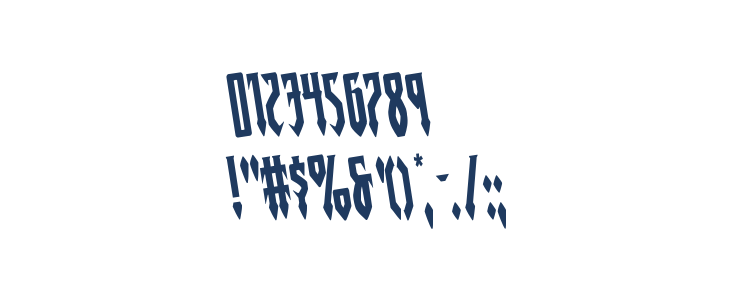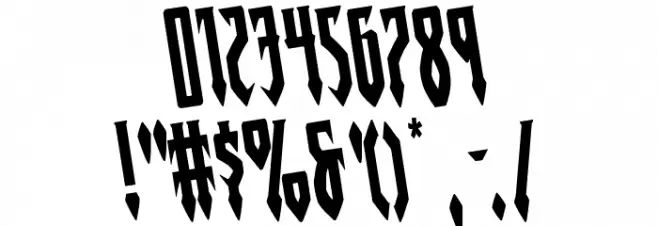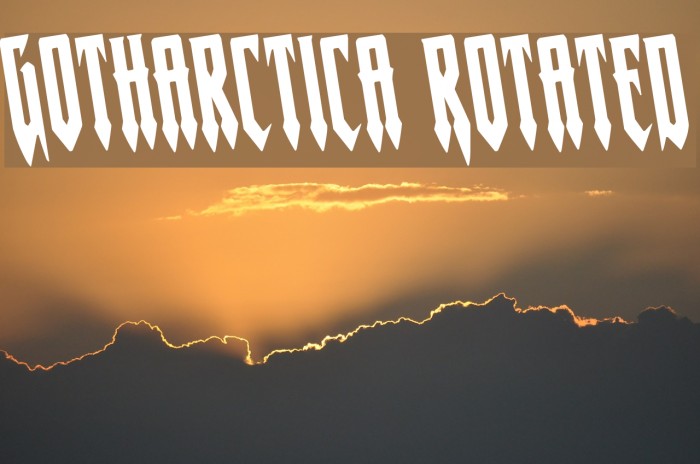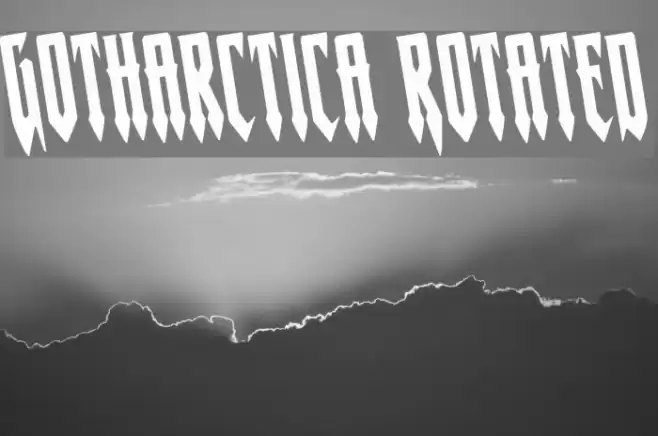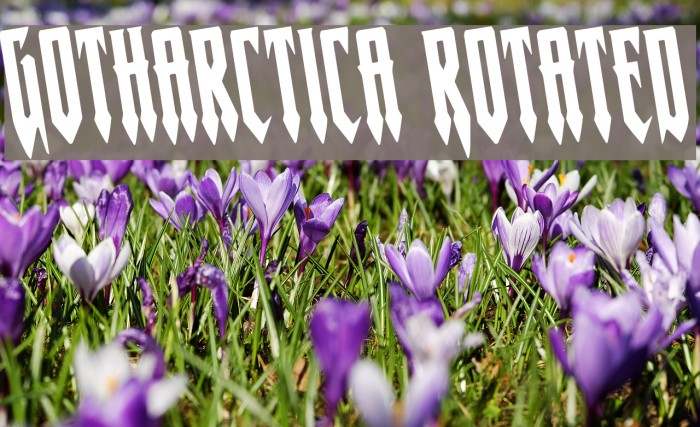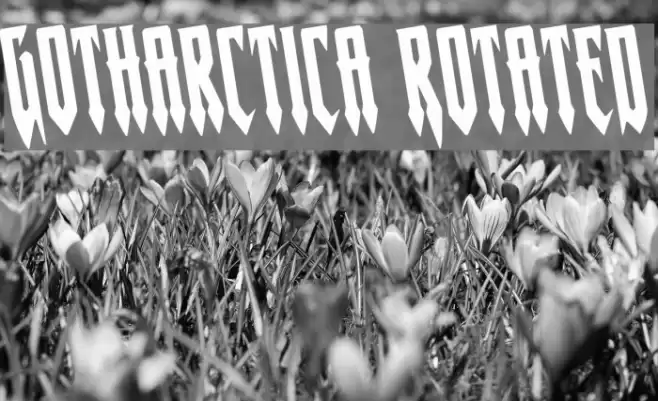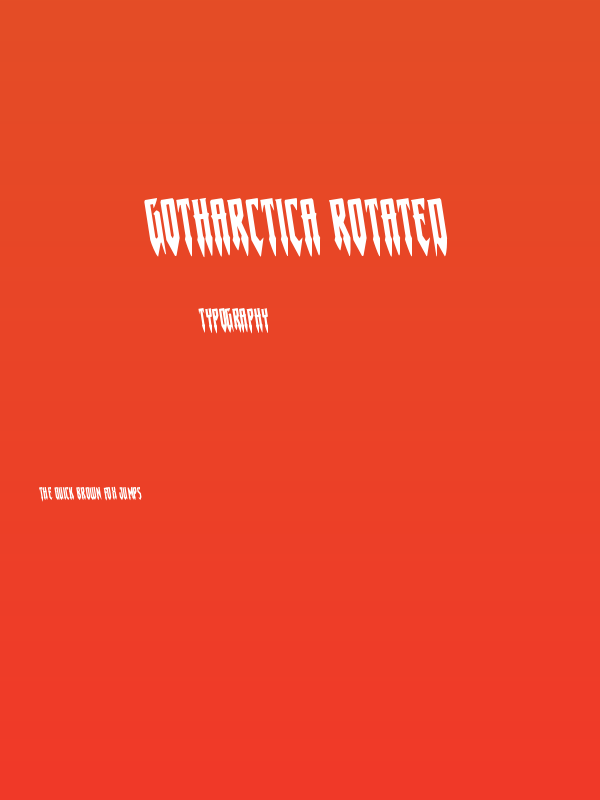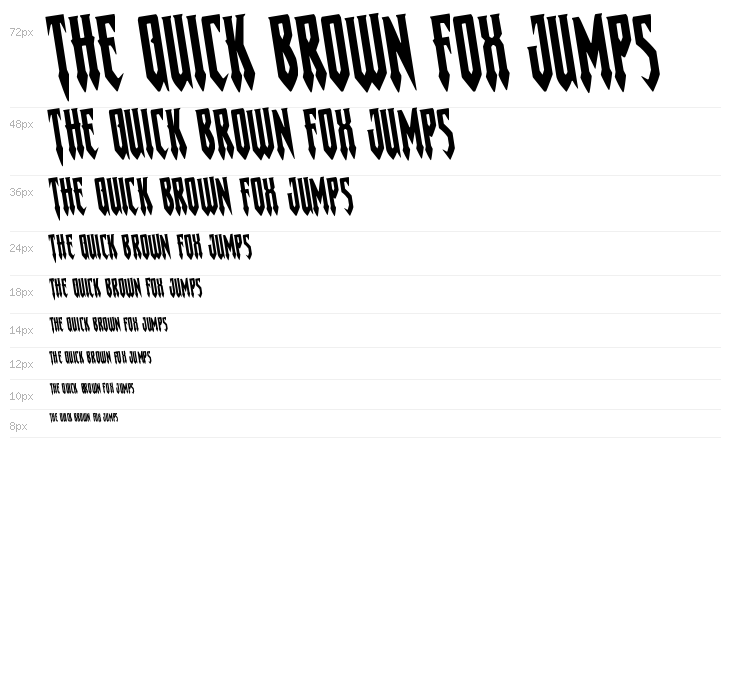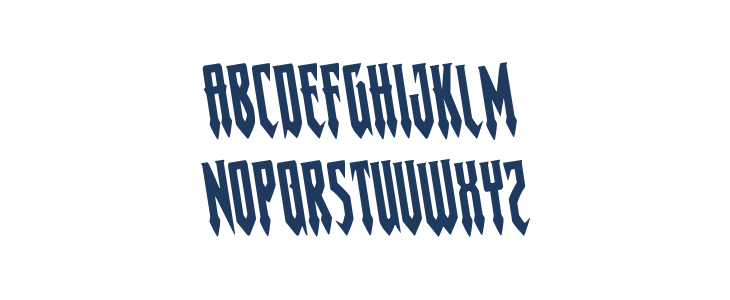
Gotharctica Rotated Font
Gotharctica Rotated Description
This font features a bold, angular design with sharp edges and a distinct gothic influence. The characters are heavily stylized, with exaggerated serifs and a dramatic, imposing presence. The uppercase and lowercase letters maintain a consistent height, contributing to a uniform appearance. The numbers and special characters are equally bold, ensuring they stand out in any context. This font's unique style makes it ideal for projects that require a strong visual impact.
| Overall Style | Gothic, Modern |
| Proposed Projects | Ideal for posters, album covers, video game titles, and branding that requires a strong, edgy aesthetic. |